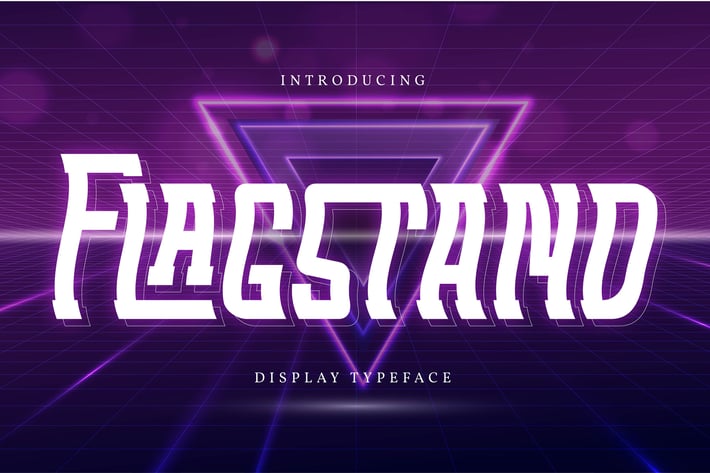
Flagstand | Display Typeface
Flagstand | Display Typeface with a calligraphy style, So beautiful on invitation like greeting cards, branding materials, business cards, quotes, posters, and more!